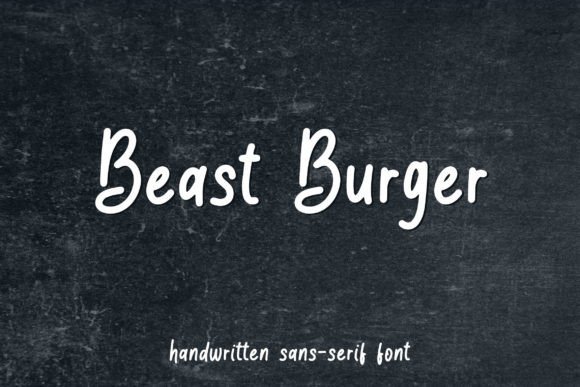
Introduction to Beast Burger Font
Beast Burger is a fun and quirky handwritten font.
Key Features of Beast Burger Font
Why Choose Beast Burger Font?
Beast Burger Font offers exceptional quality and versatility, making it a valuable addition to your design toolkit. Whether you’re creating for personal projects or commercial use, Beast Burger Font delivers professional results.